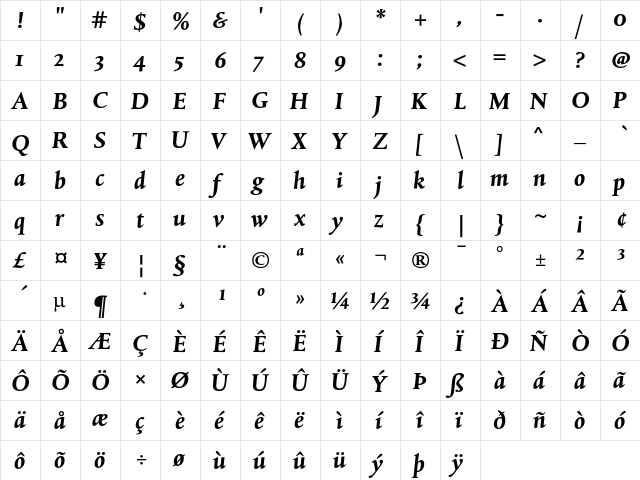
DTLAlbertinaST Bold Italic Font Preview
DTLAlbertinaST Bold Italic
Design Context for DTLAlbertinaST Typeface
DTLAlbertinaST takes a measured approach to typography — its balanced proportions and neutral character make it a reliable workhorse for both digital and print work. The dynamic lean of this cut emphasises speed and emphasis in any layout. Its bold stroke weight gives it real presence on the page.
Pro Tip: Use DTLAlbertinaST for emphasis, pull quotes, and subheadings where its slanted energy can add rhythm to the layout.